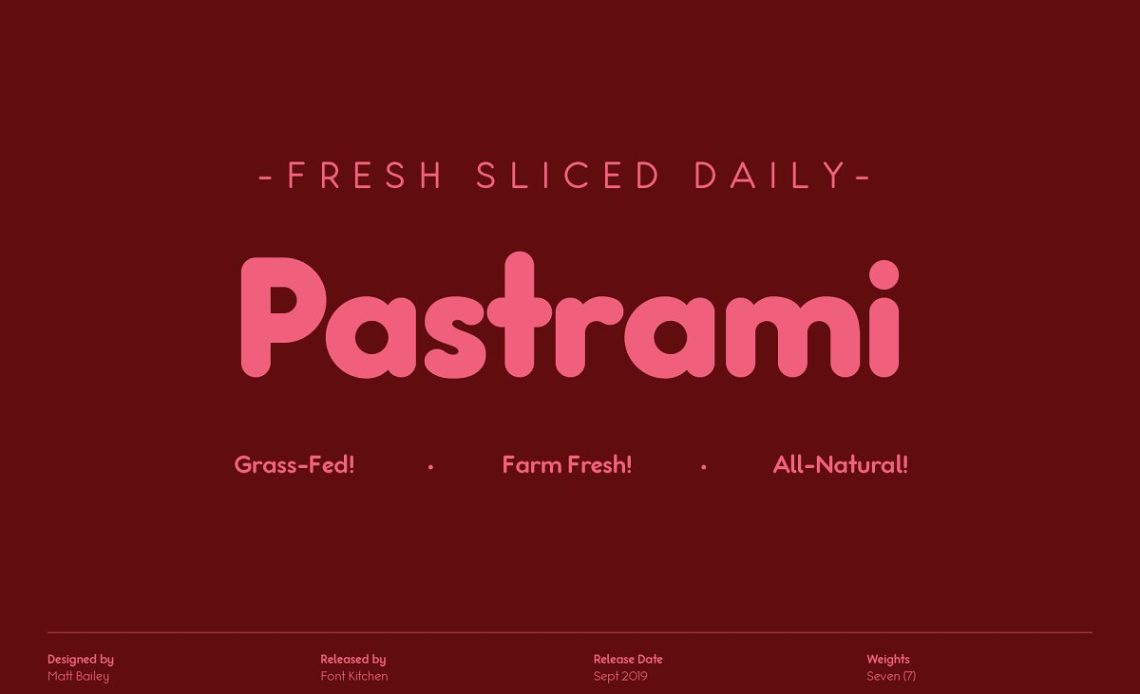
Looking for a friendly, approachable font that will add a touch of whimsy to your next project? Look no further than Pastrami, the latest creation from the Font Kitchen! This rounded sans serif font is perfect for anyone looking to add a touch of personality to their designs.
Inspired by the warm, welcoming typefaces used in 70s American diners, Pastrami is a versatile font that can be used in a variety of settings. With seven different weights to choose from, you'll be able to find the perfect fit for your project.
But what really sets Pastrami apart is its all-natural ingredients. Made with a generous helping of ligatures and fractions, this font is sure to delight even the most discerning typographer. And with a variety of stylistic alternates to choose from, you can customize the look of your text to suit your needs.
Whether you're designing a menu for a hip new restaurant, creating a fun and funky poster, or just looking for a font that will make your next project stand out, Pastrami is the perfect choice. So why not download it today and start adding a little flavor to your designs?